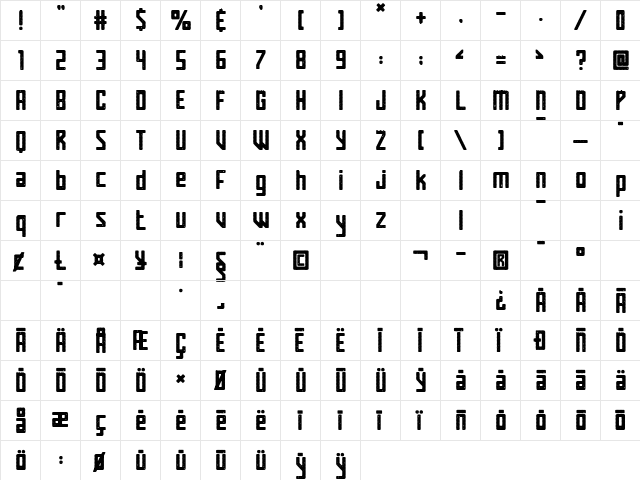
Magician Rings Regular
Design Context for Magician Rings Typeface
Magician Rings is a composed and adaptable typeface that performs quietly and consistently across a wide range of design contexts.